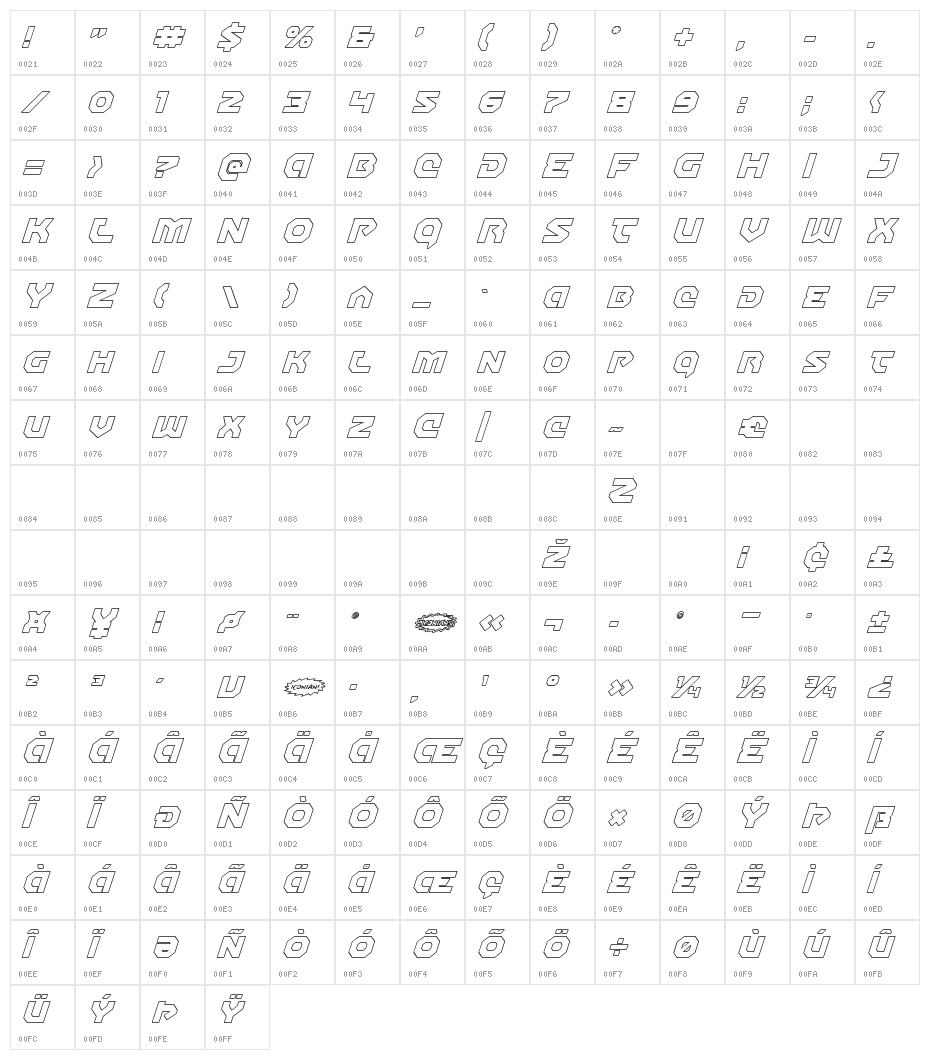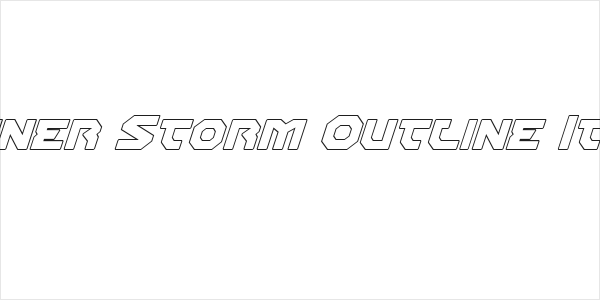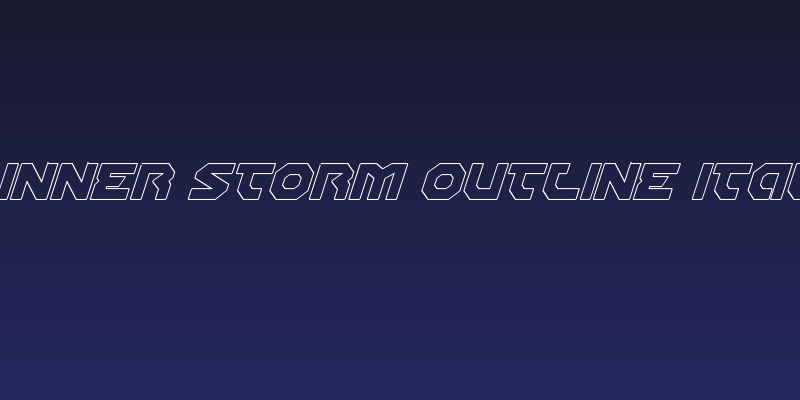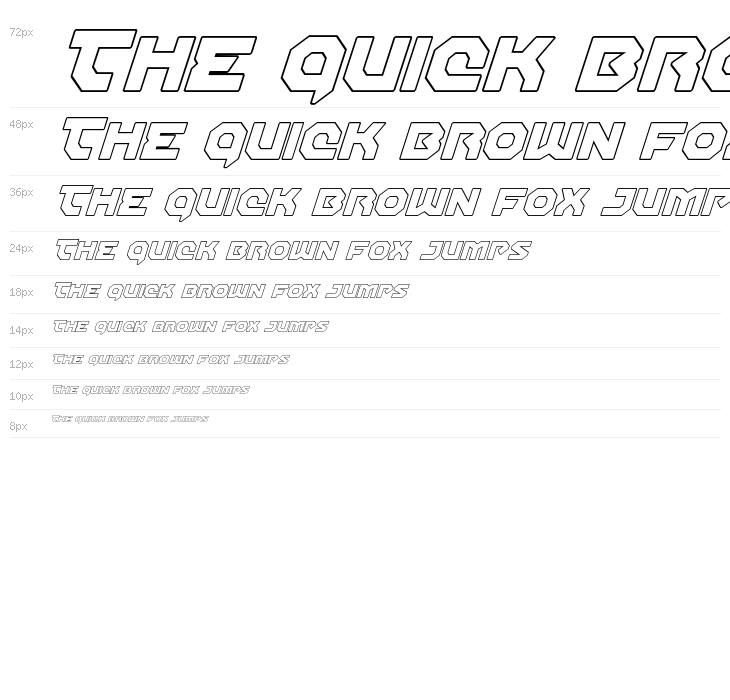
Gunner Storm Outline Italic Font
Gunner Storm Outline Italic Description
This font features a bold, geometric outline style with a distinct italic slant, giving it a dynamic and modern appearance. The characters are constructed with sharp angles and straight lines, creating a futuristic and edgy look. The outline design adds a layer of depth and dimension, making it stand out in various design contexts. The uppercase and lowercase letters maintain a consistent style, with numerals and special characters following the same angular and outlined theme. This font is ideal for projects that require a strong visual impact and a contemporary feel.
| Proposed Projects | Ideal for branding, posters, video game graphics, and futuristic-themed designs. |